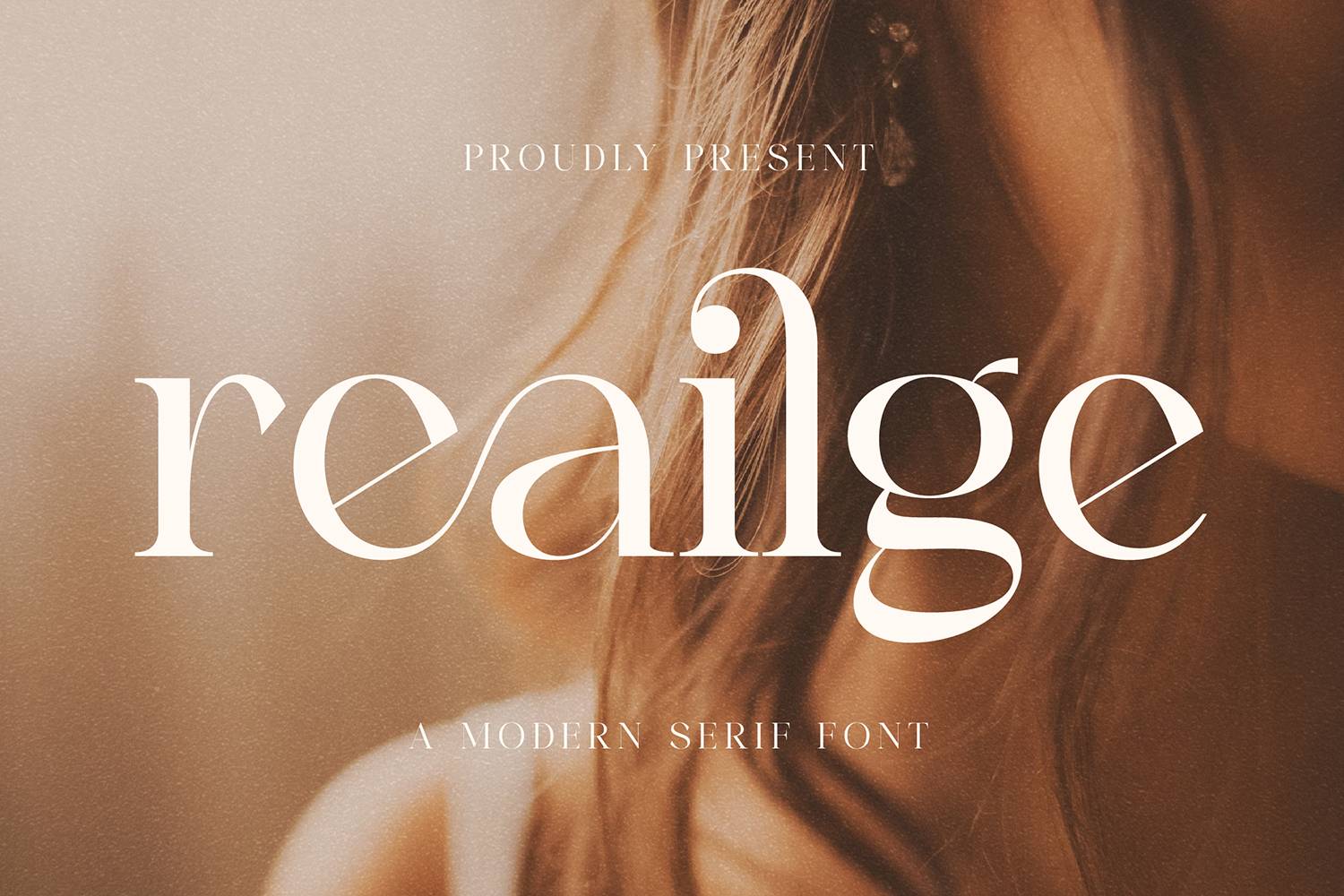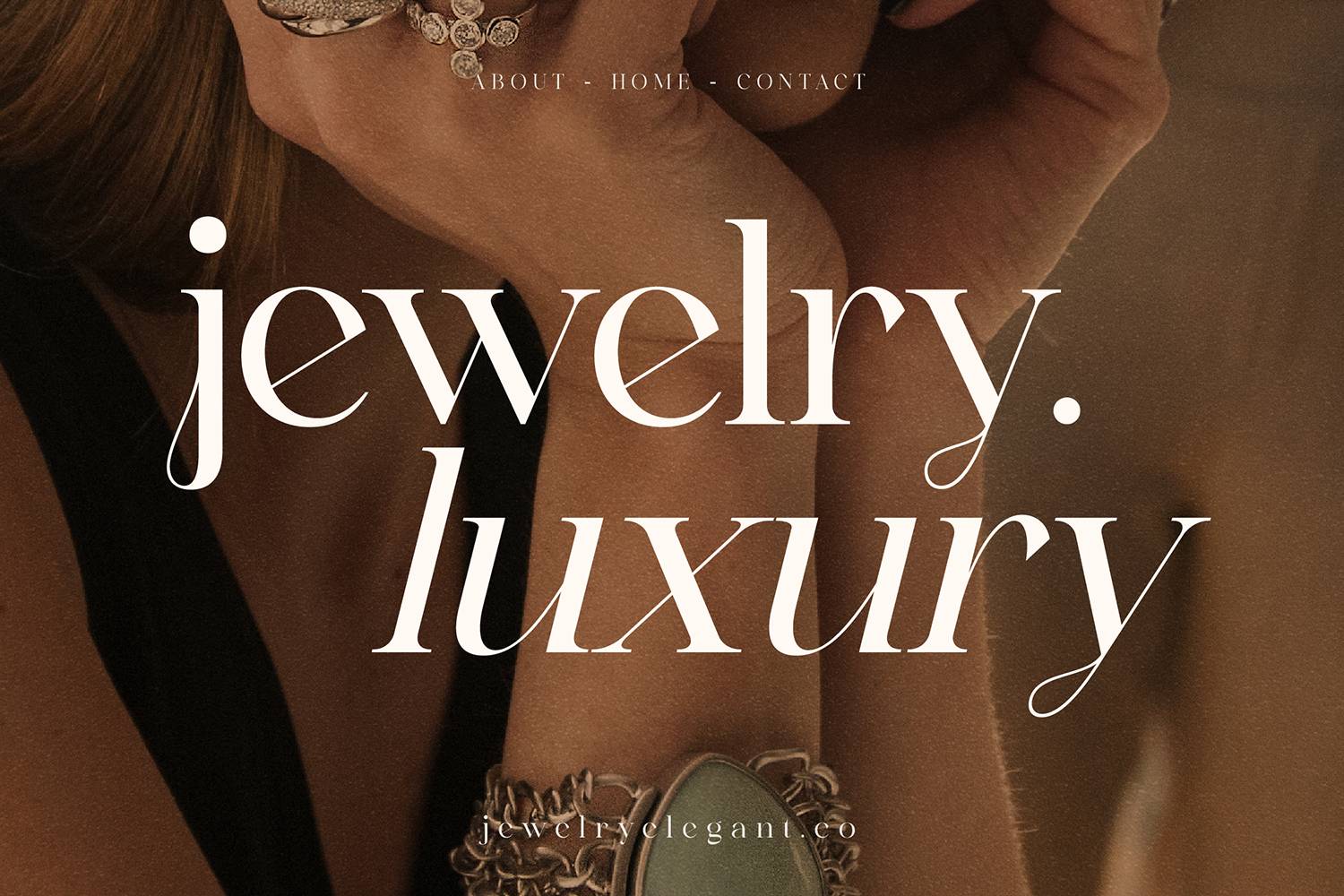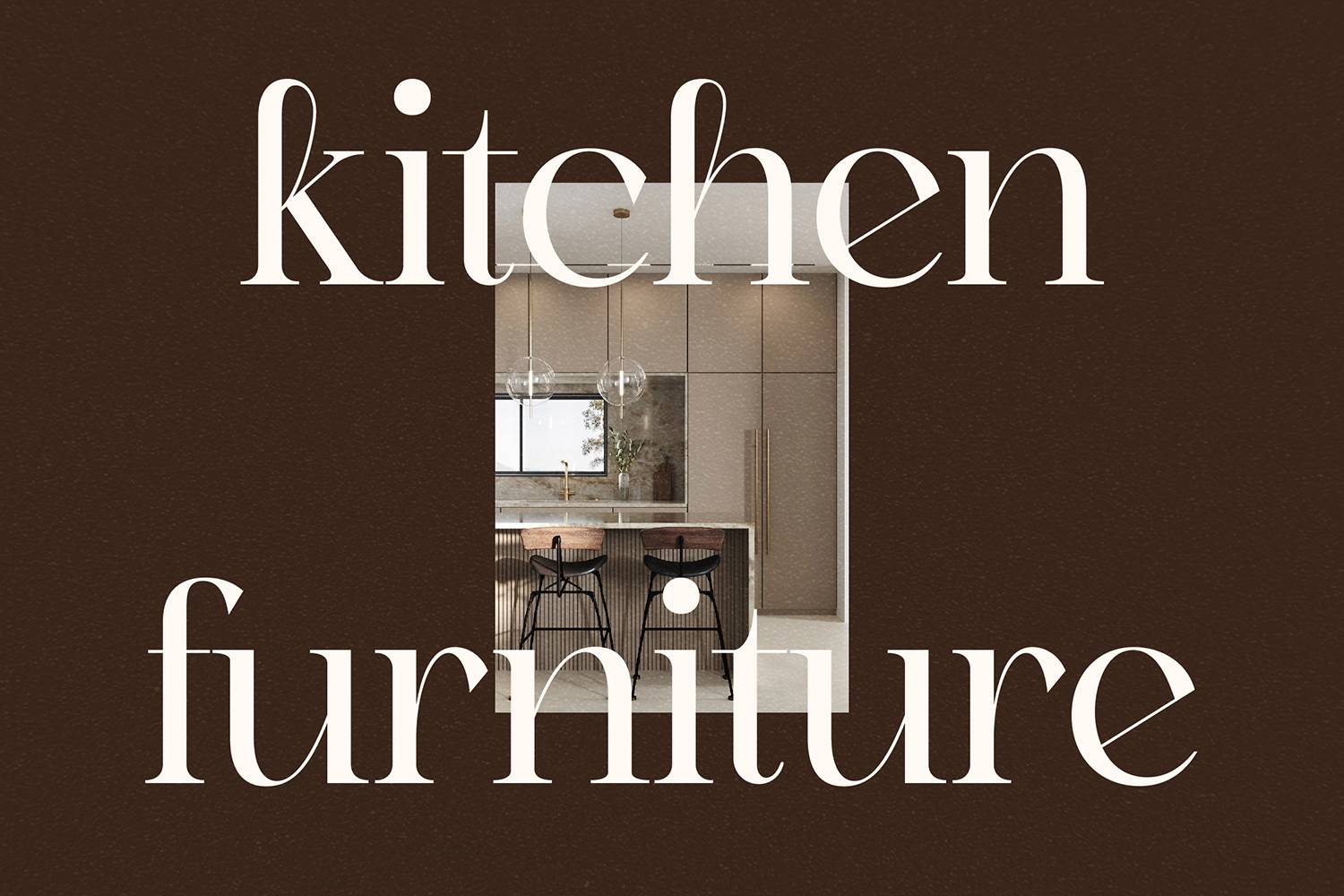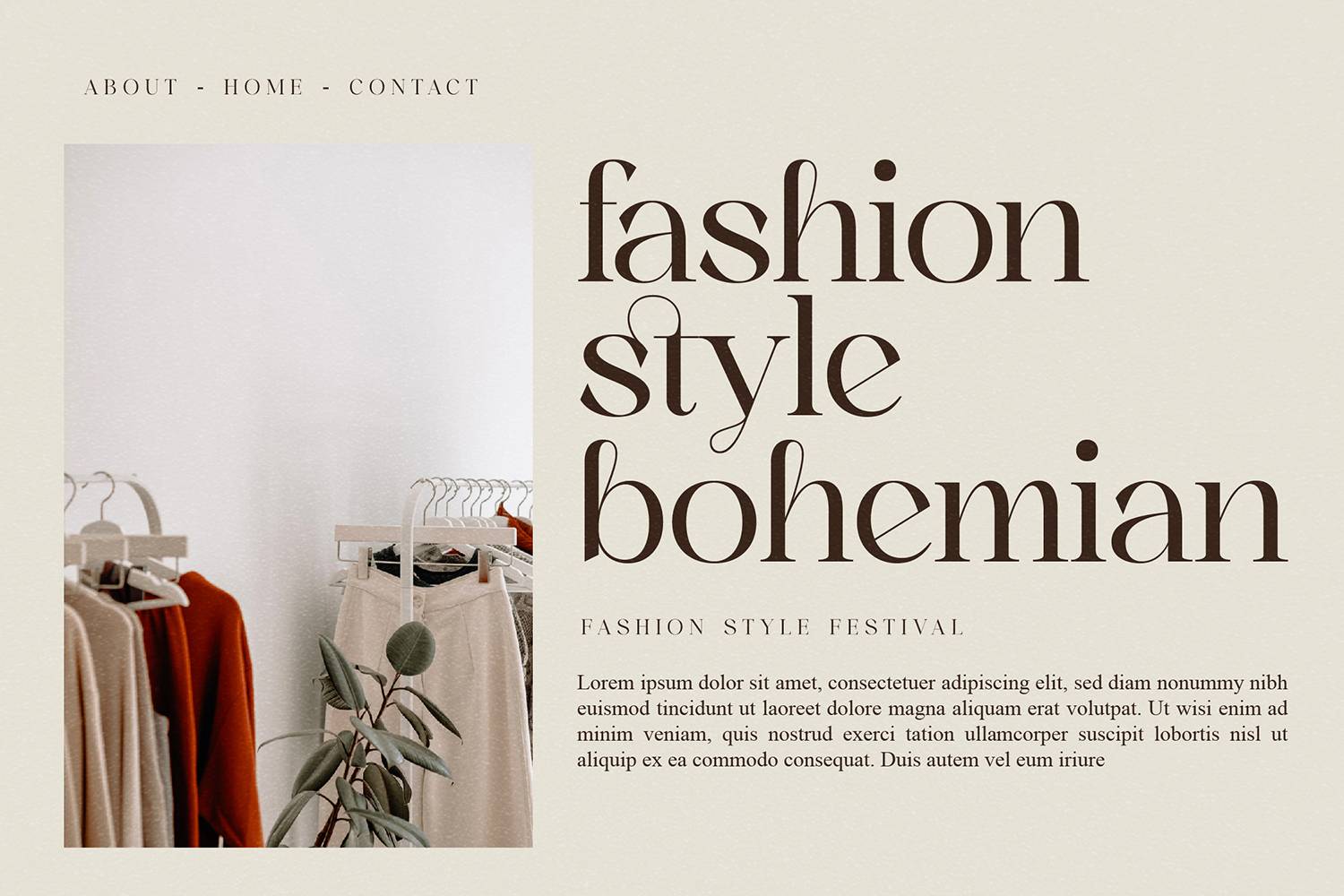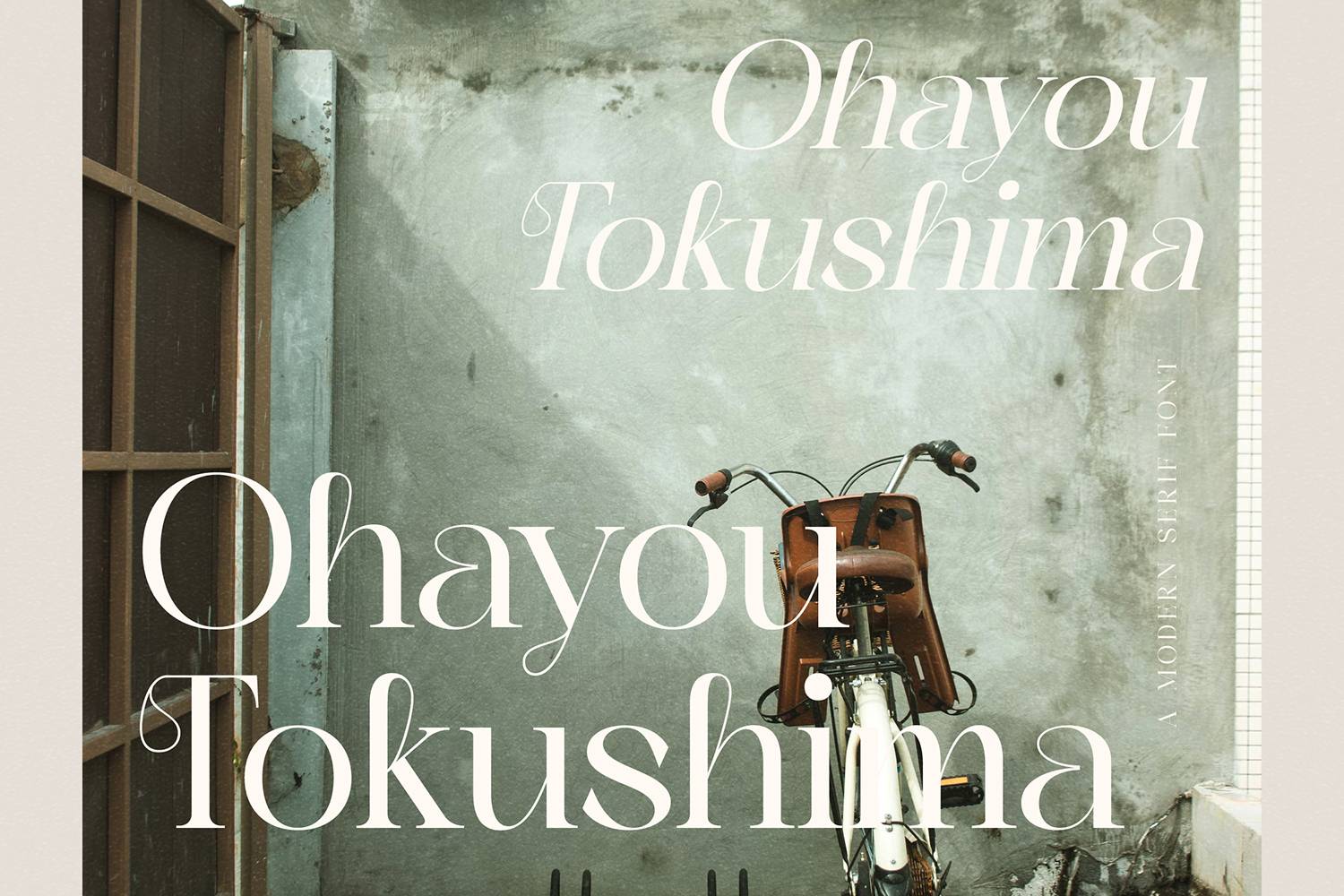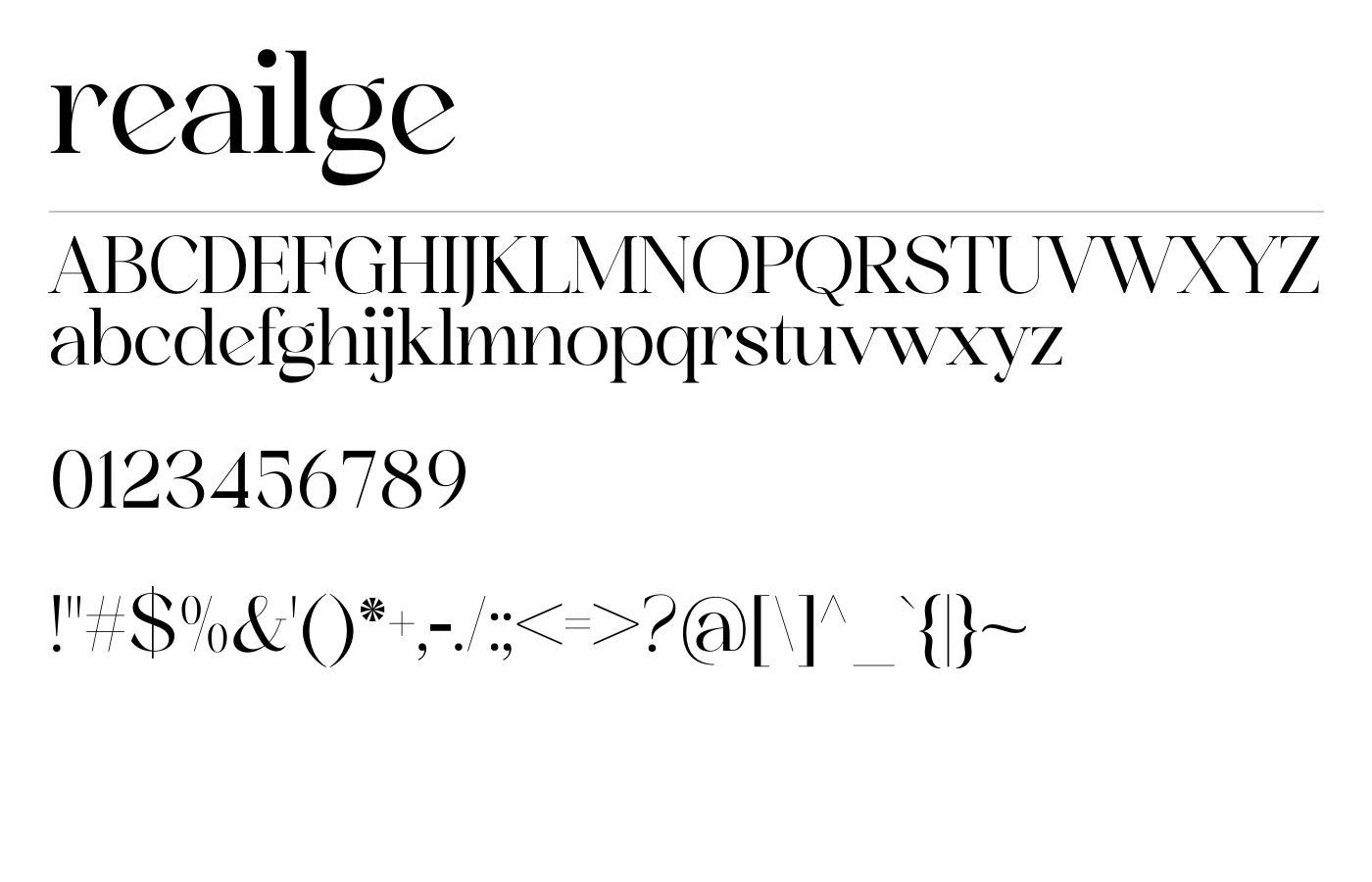
Reailge is a refined serif font with a modern Didone style, showcasing high contrast between thick and thin strokes and elegant, sharp serifs that bring a sophisticated, luxury feel. Its tall x-height and graceful letterforms, including delicate curves and distinctive details like the single-story 'g' and stylized ampersand, make it ideal for upscale branding, editorial headlines, and fashion packaging where a stylish, contemporary look is desired. This font combines timeless elegance with modern clarity, perfect for designs that want to communicate refinement and exclusivity.
Reailge Font
About Reailge Font